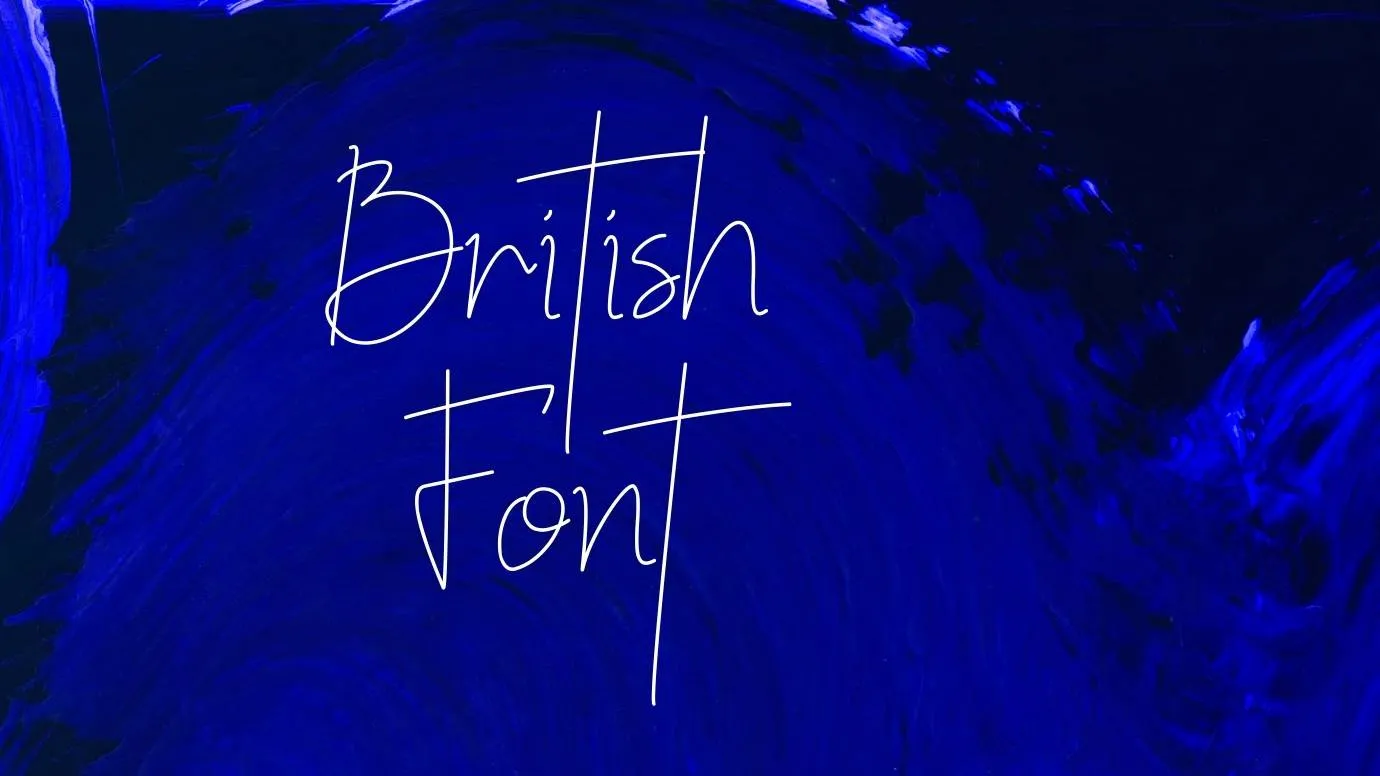
British Font Family is a modern handwritten typeface. It comes in 85 characters along with numbers, extra large swashes, and lowercase letters. This fantastic font was designed by AimCreative.
Its attractive look is so famous all over the world because a large number of international languages support this typeface. Its similar font known as albret font is best for pairing with it.
British Font